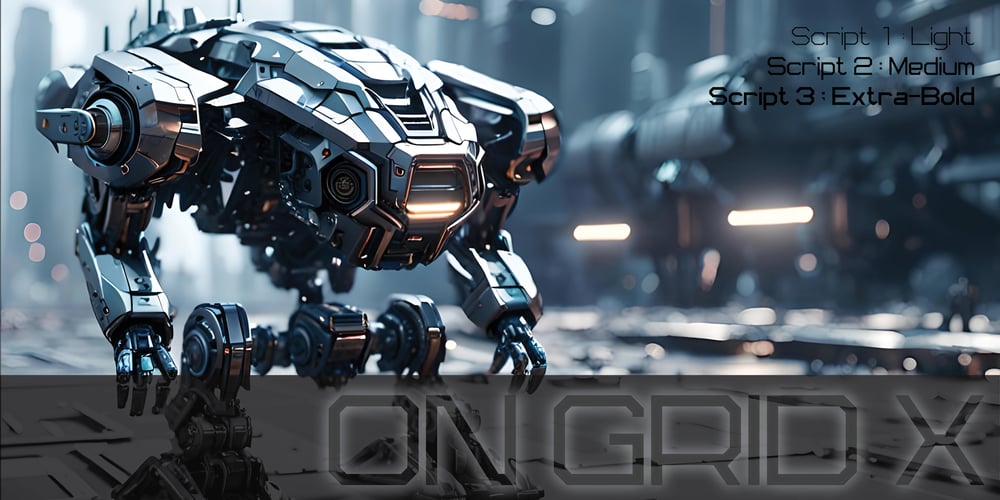
On Grid X
On Grid X font
On Grid X Font Family was designed by Eko Nur Setiawan and published by Greypublic. On Grid X contains 3 styles and family package options. The OnGridX typeface is typically a font style known for its straightforwardness, clarity, and readability. Simple fonts like this are often chosen to present information in a clean and uncomplicated way.These fonts are widely used in various settings, such as body text for documents, websites, and presentations, where clarity and readability are key.When selecting this font, it’s important to consider its intended use and the overall design objectives. The simplicity of the font should enhance the visual elements of your project while ensuring the text is easy to read and comprehend.